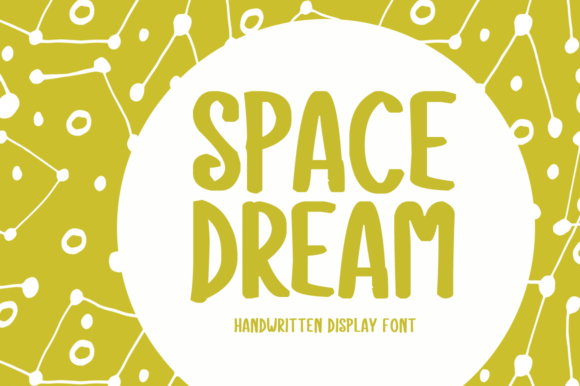
Immerse yourself in the limitless expanse of creativity with Space Dream Font, a mesmerizing display font crafted by Shattered Notion. This font is an artistic odyssey, taking you on an interstellar journey where your designs transcend the boundaries of imagination. With its playful and enchanting characters, Space Dream Font transforms ordinary text into a cosmic spectacle.
Step into a world where celestial bodies dance across your screen and words ignite with astral radiance. Space Dream Font is not just a collection of letters; it's a portal to a universe where imagination reigns supreme. Its whimsical curves and dynamic shapes create a sense of movement and energy, perfectly capturing the essence of boundless space.
Unleash your inner astronaut and let your creativity soar. Whether you're designing logos, posters, branding materials, or social media graphics, Space Dream Font will propel your designs to new heights. Its versatility knows no bounds, adapting seamlessly to a wide range of projects.
With Space Dream Font as your celestial companion, you'll create designs that shimmer with cosmic allure. Your audience will be captivated by the font's enchanting charm, drawn into a world where dreams take flight and imaginations run wild.
So, embark on this extraordinary journey and let Space Dream Font illuminate your creative endeavors. Embrace the infinite possibilities that await you as you craft designs that are truly out of this world.